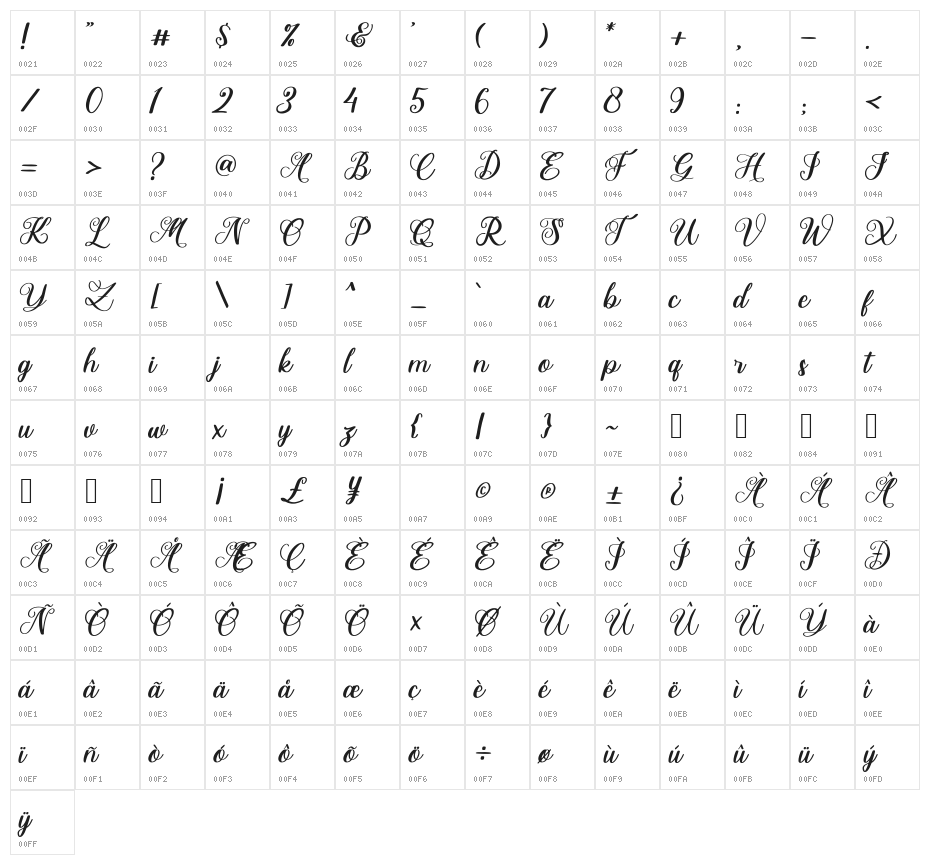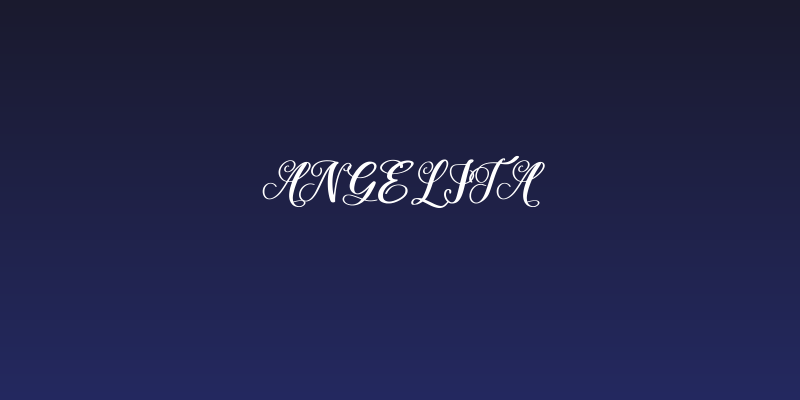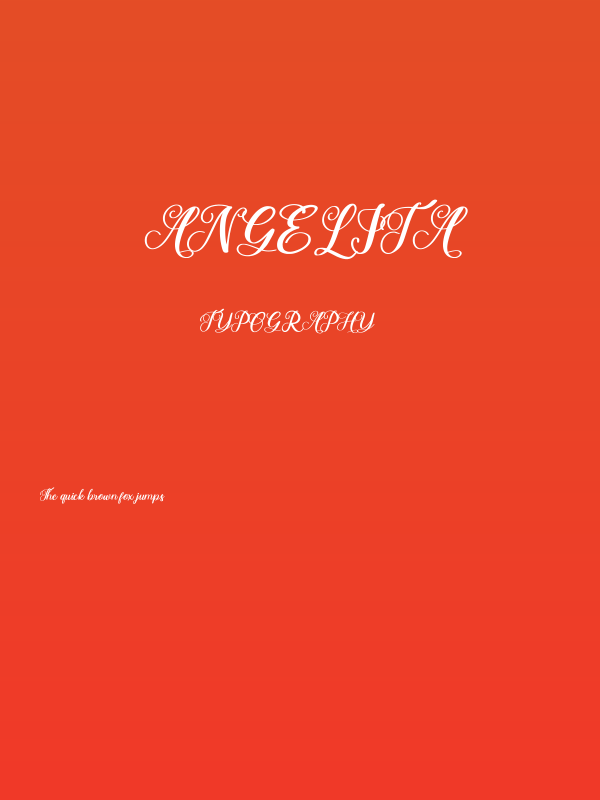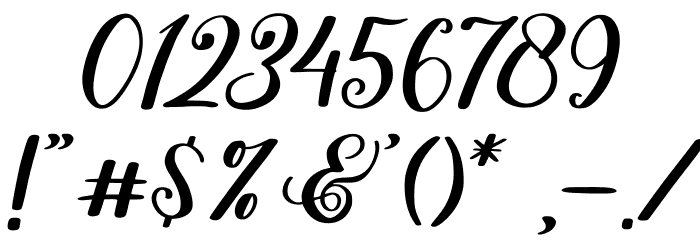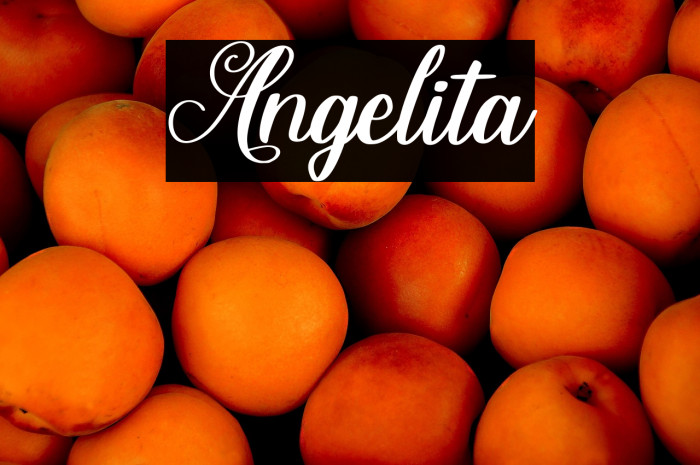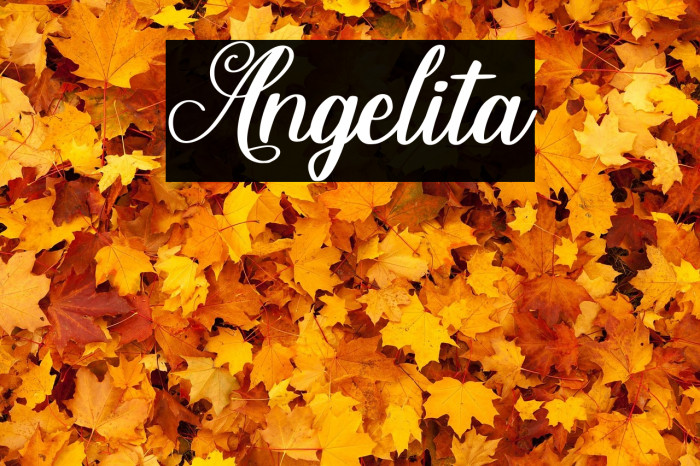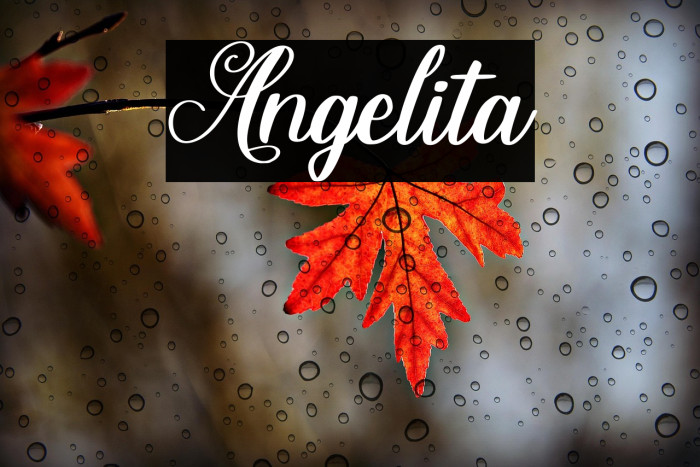
Angelita Font
Angelita Description
This elegant script font features a flowing, cursive style with intricate loops and swashes, giving it a sophisticated and decorative appearance. The uppercase letters are adorned with elaborate flourishes, while the lowercase letters maintain a smooth, connected flow. The numbers and special characters complement the overall design with their stylish curves and consistent line weight. This font exudes a sense of grace and refinement, making it ideal for formal and decorative applications. Its high contrast in stroke thickness adds to its visual appeal, ensuring that it stands out in any design.
| Proposed Projects | Ideal for wedding invitations, elegant branding, greeting cards, and luxury packaging. |